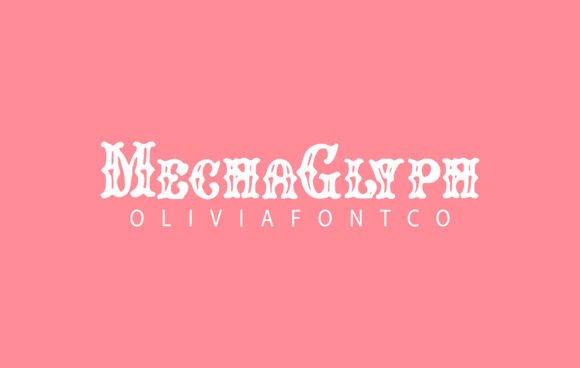
Mechaglyph Font Review for Handmade Product Design
There is a specific moment in every product design session where the layout feels technically correct but emotionally flat. Last Tuesday, while finalizing a label for a new line of soy candles, I hit that exact wall. The minimalist sans serif I had chosen was clean and legible, yet it lacked the warmth necessary to convey the hand-poured, small-batch nature of the product. That is when I decided to test Mechaglyph, a typeface that promised to bridge the gap between structural reliability and organic charm. As a maker who constantly balances aesthetic beauty with production realities, finding Fonts that work as hard as they look beautiful is rare. MechaGlyph font is an authentic handwritten font with a romantic touch, and after running it through a gauntlet of real-world mockups, from candle labels to wedding stationery, it has proven to be a versatile asset for creative entrepreneurs.
Mechaglyph for Candle Labels and Boutique Packaging
When applying Mechaglyph to physical product packaging, specifically within the Slab Serif category, the immediate standout quality is its grounded elegance. Unlike delicate scripts that can disappear against textured paper or become illegible on curved surfaces, this font maintains a sturdy presence without sacrificing its romantic personality. During my candle label test, I printed the design on both matte vinyl and uncoated kraft paper. On the matte vinyl, the thick strokes of the slab serifs provided excellent contrast against a dark amber jar, ensuring the scent name remained readable from a distance. On the uncoated kraft, the ink spread slightly into the paper grain, which actually enhanced the authentic handwritten feel rather than degrading it.
This duality makes Mechaglyph exceptionally useful for boutique branding where perceived value relies on tactile details. For product makers, the weight of this display font means you do not have to artificially bold the text in your design software, which often distorts letterforms. Instead, the natural thickness supports small-scale printing on tags, stickers, and box sleeves. However, a practical note for fellow sellers: while the font shines on primary branding elements like product names or short taglines, it is too decorative for dense ingredient lists or safety warnings. I found it pairs beautifully with a simple, geometric sans serif for those technical details, allowing Mechaglyph to serve as the emotional hook while the supporting typeface handles the regulatory information. This hierarchy elevates the entire package, making handmade goods look professionally curated rather than hastily assembled.
Using Mechaglyph for Wedding Invitations and Stationery
Transitioning from product packaging to paper goods, Mechaglyph demonstrates why it is considered a premium font for the wedding and event industry. When designing a welcome sign mockup for a fall wedding, the romantic touch of the letterforms added an instant layer of intimacy that standard calligraphy fonts often lack. Many script fonts feel overly formal or dated, but Mechaglyph strikes a modern balance that appeals to contemporary couples seeking vintage inspiration. The slab serif structure gives the invitation suite a sense of permanence and stability, which is psychologically reassuring for high-stakes events like weddings.
For stationery designers creating editable templates for Etsy or Creative Market, this typeface offers significant commercial viability. Its unique character shapes prevent designs from looking generic, which is crucial in a saturated market. I tested the font at various sizes for place cards and menu headers, noting that the open counters and distinct serifs maintained clarity even at 14pt size. This readability is essential for guests navigating a reception hall in dim lighting. Furthermore, because MechaGlyph font is an authentic handwritten font with a romantic touch, it reduces the need for excessive ornamental graphics. The font itself acts as the decoration, saving space on the page and reducing ink costs for print-at-home customers. When pairing this font for stationery, consider using a lightweight serif for body text to maintain that editorial sophistication without competing with the display header.
Cutting Machine Compatibility for Stickers and Decals
For Cricut and Silhouette users, the true test of any creative font is how well it weeds. A digital preview can be deceiving, so I ran a test cut of Mechaglyph on permanent adhesive vinyl to assess its production readiness. The slab serif construction is surprisingly cutter-friendly because the serifs provide natural anchor points for the blade, reducing the likelihood of tearing during the weeding process. Unlike thin, wispy scripts that require transfer tape mastery and patience, the substantial stroke width of Mechaglyph allows for cleaner cuts on standard settings.
This durability makes it an excellent choice for merchandise beyond paper, including tote bags, mugs, and apparel. When heat-pressing a design onto a canvas tote, the font’s weight ensured full coverage without gaps, resulting in a crisp impression that mimics screen printing. However, crafters should avoid scaling this font down below 0.75 inches for vinyl applications. While the serifs help with cutting, they can fuse together if the design is miniaturized excessively. For small sticker sheets or planner icons, reserve Mechaglyph for single-word accents or initials, and utilize a simpler sans serif for longer phrases. Understanding these physical limitations ensures that your digital downloads translate seamlessly into finished crafts, reducing waste and frustration for your customers.
Digital Printables and Social Media Branding with Mechaglyph
In the realm of digital products and web design, Mechaglyph serves as a powerful tool for establishing brand identity across screens. When creating social media templates for a lifestyle blog, the font rendered sharply on mobile displays, retaining its romantic nuance without pixelation. This is vital for Instagram stories and Pinterest pins where typography must be instantly recognizable in a scrolling feed. The font’s inherent texture adds a human element to digital spaces that can otherwise feel sterile, helping creators build a deeper emotional connection with their audience.
For printable wall art creators, Mechaglyph offers the versatility needed to span multiple niches. It works equally well for nursery decor, kitchen signs, and inspirational quotes because it avoids being pigeonholed into a single aesthetic. Expertly designed to be a true favorite, this font has the potential to take your creative ideas to the highest level by providing a consistent typographic voice across diverse product lines. When listing digital downloads, ensure you check the licensing terms regarding commercial use, especially if you plan to incorporate the font into end-products for sale versus selling the font file itself. Additionally, verify multilingual support if you cater to international buyers, as special characters are often necessary for European markets. By treating Mechaglyph as a core component of your design system rather than just a novelty accent, you create a cohesive shop experience that signals professionalism and artistic integrity to potential buyers.